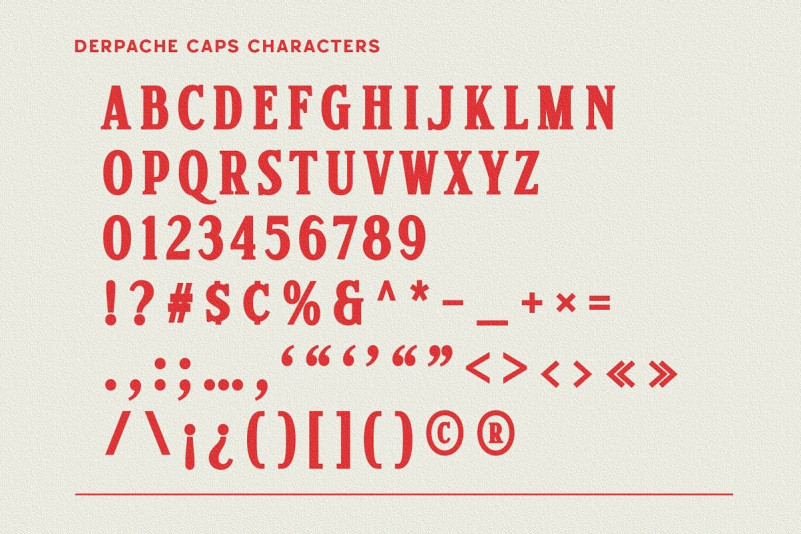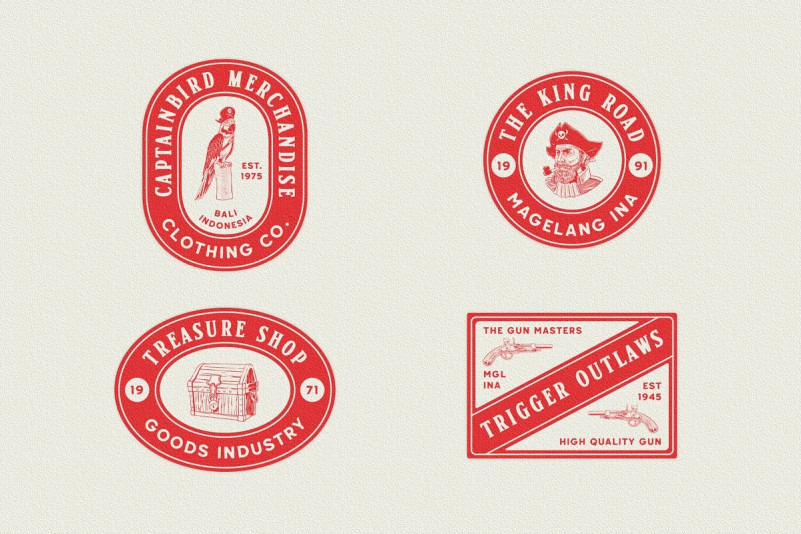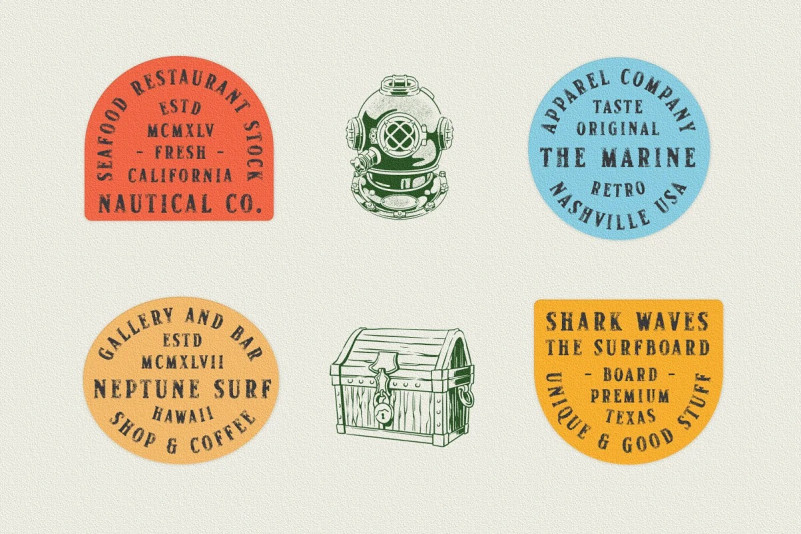
Derpache Caps Font
Derpache Caps Font is a Serif in Derpache Fonts. The Derpache font is inspired by the authentic typography found in old labels. This font collection contains script and serif fonts. Each font comes with 4 typefaces (lowercase, round, rough, and accented). Derpache offers more nautical and pirate illustrations in one package. This script font includes several substitutions. Derpache matches are applied in several designs like logos, posters, labels, badges, packaging, t-shirts, branding, quotes and many more custom designs.